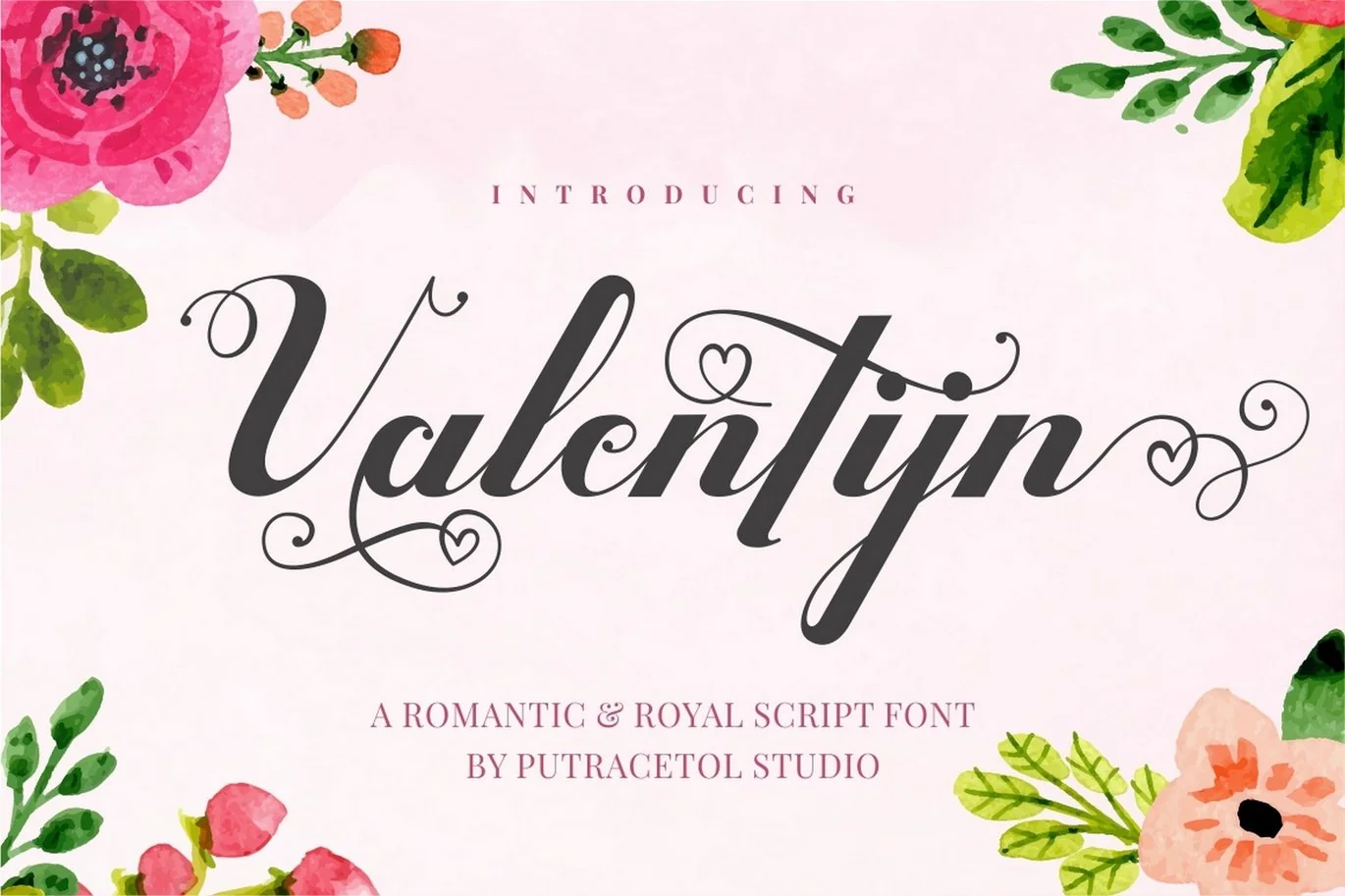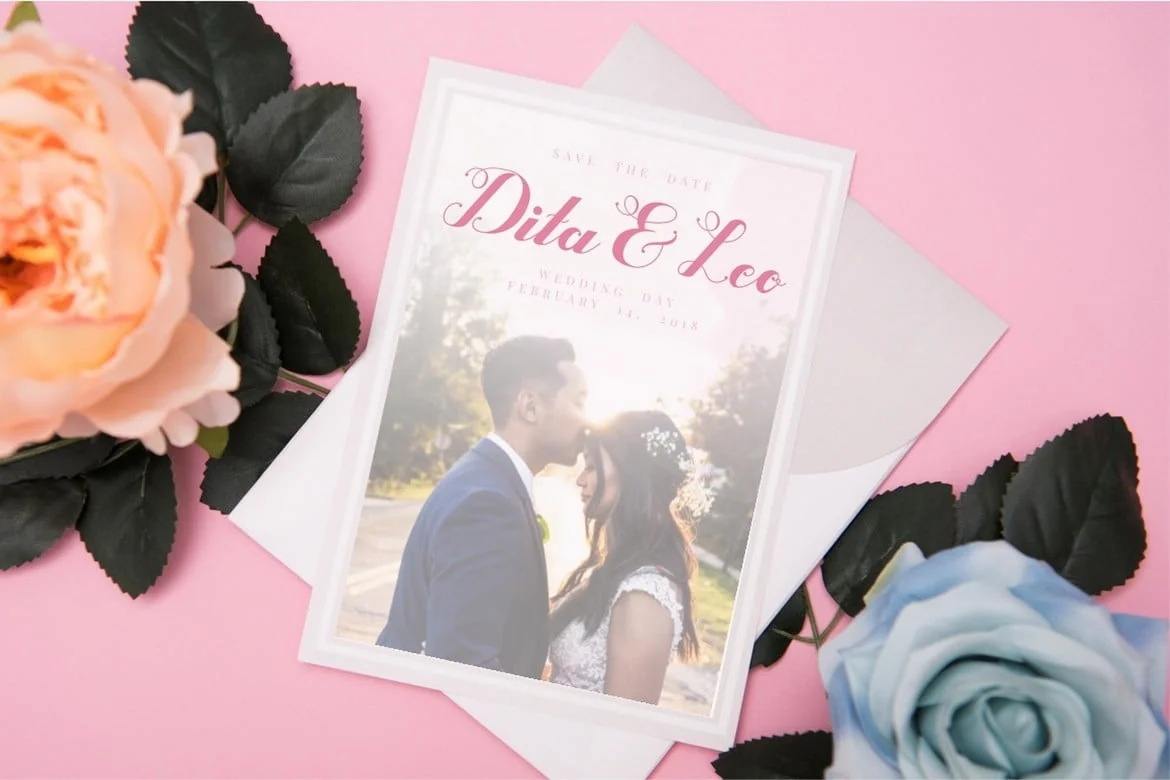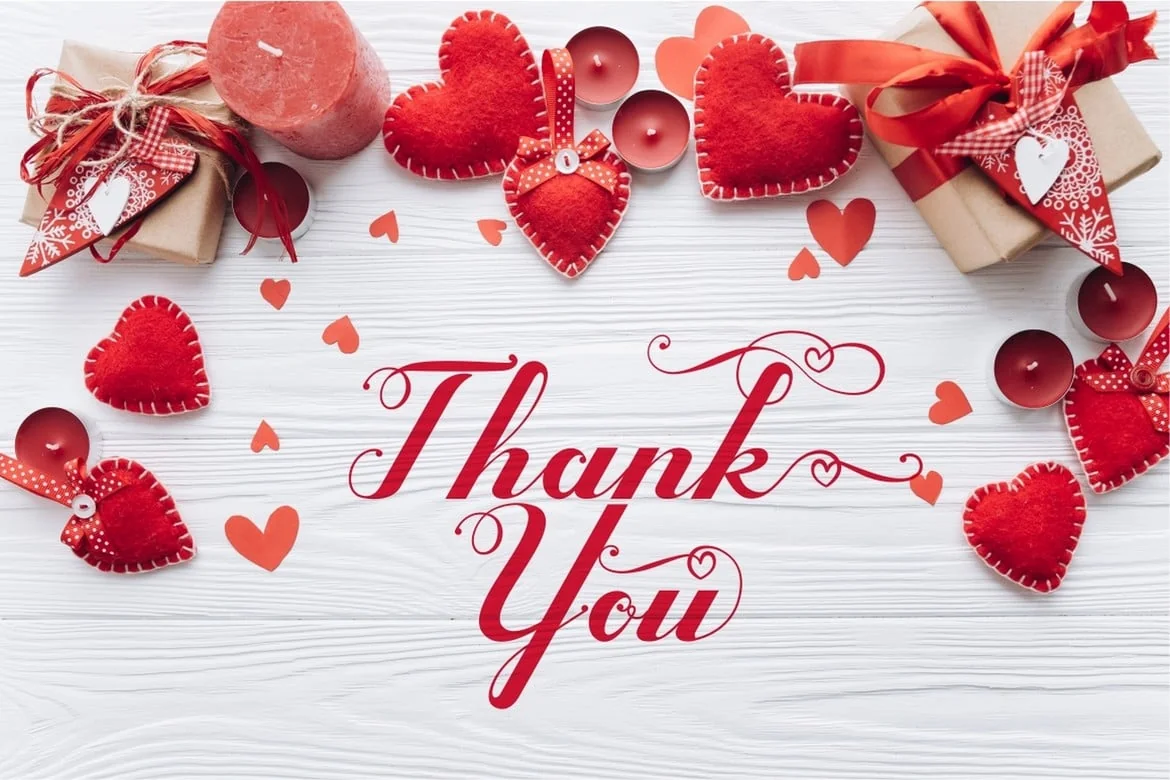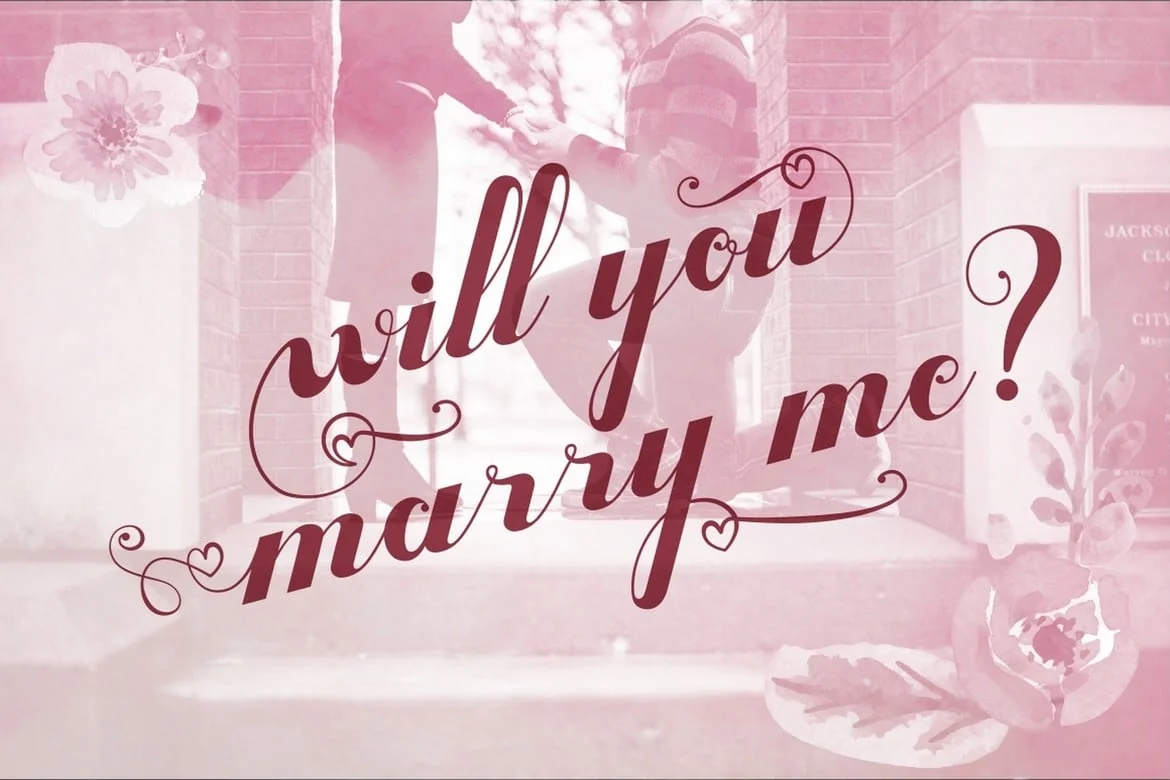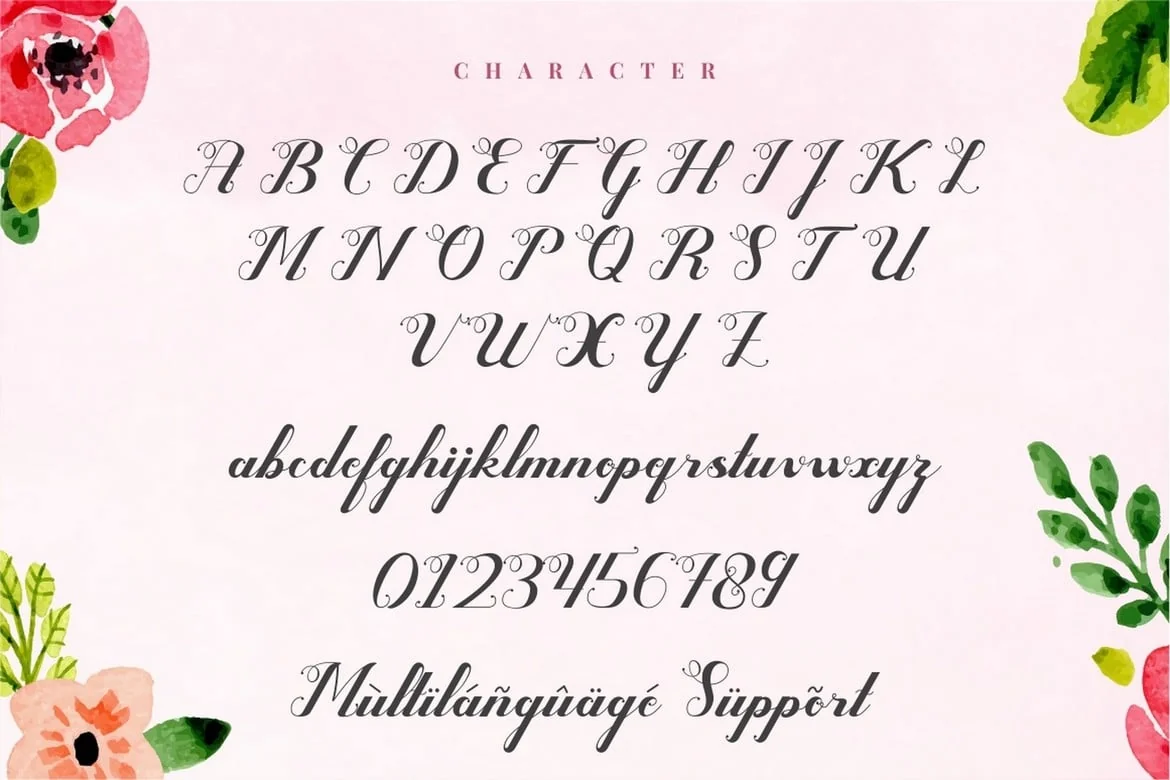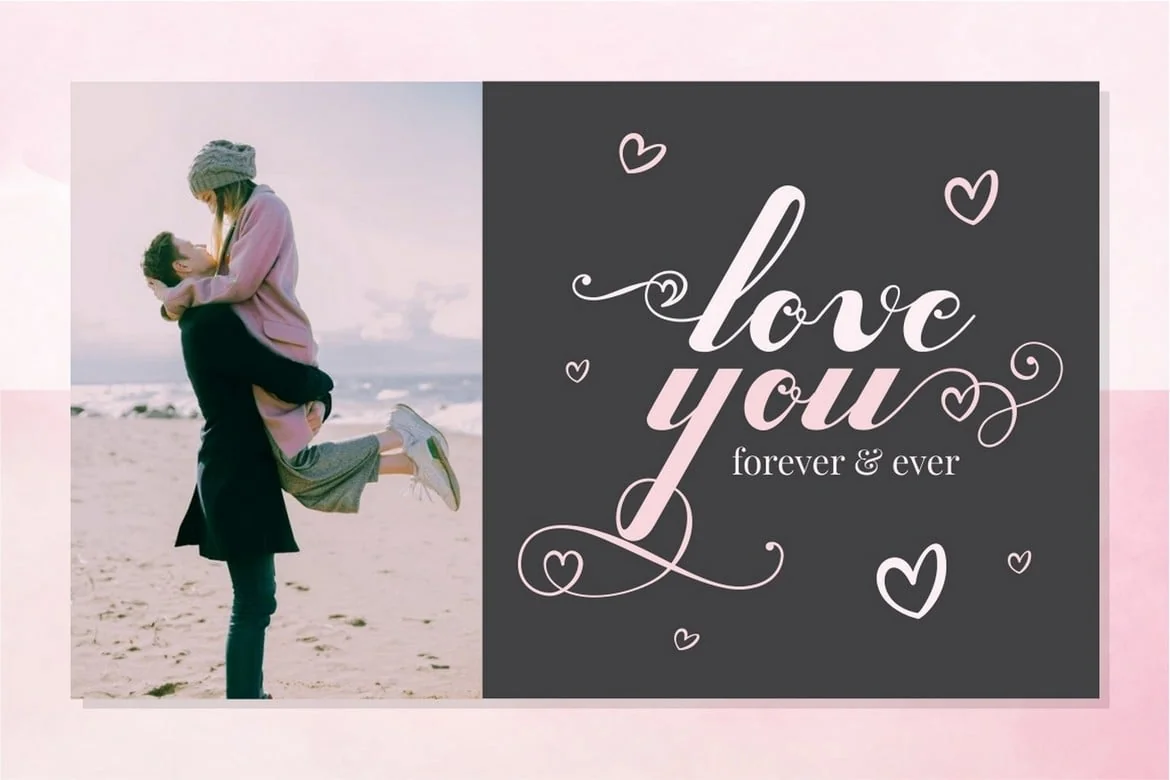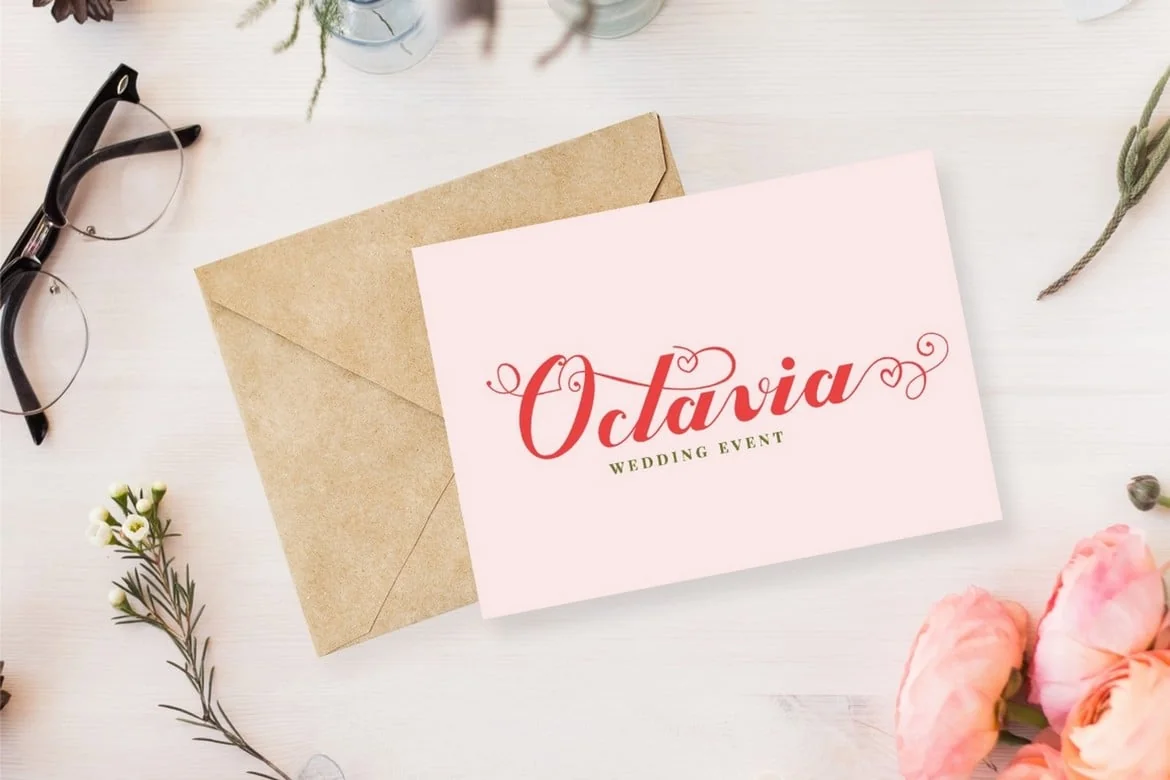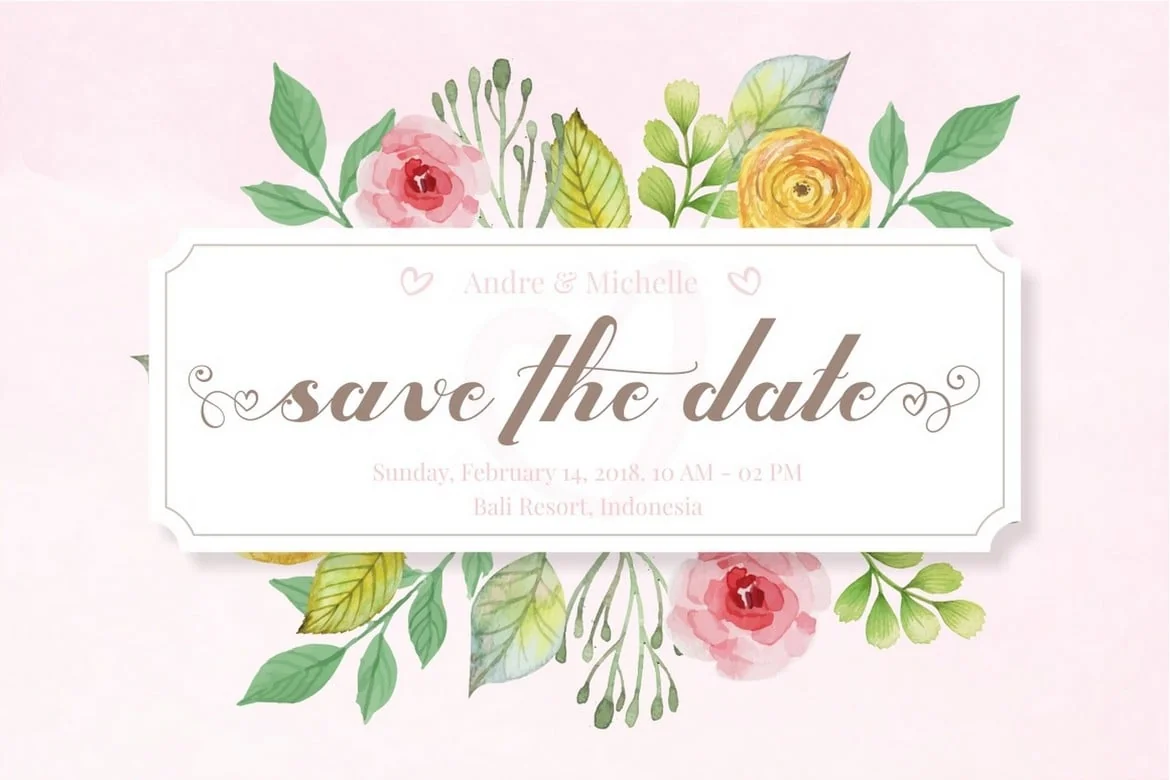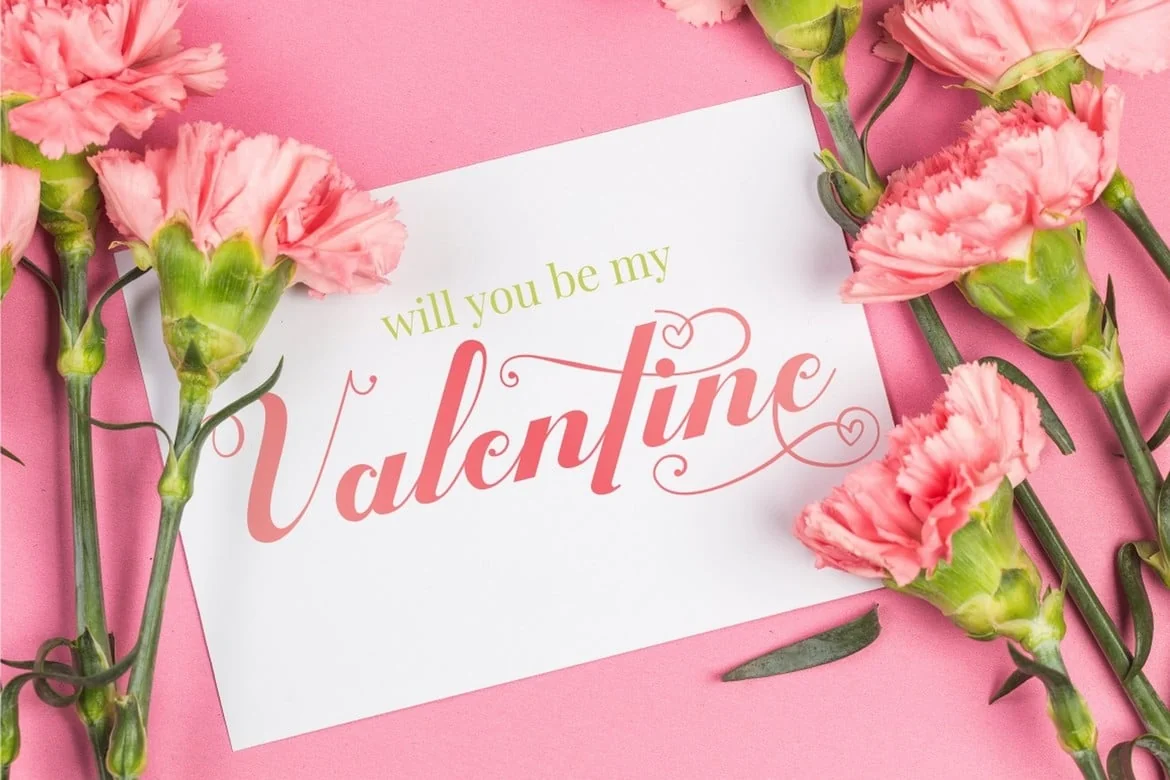
Valentijn – Romantic Font
** Valentijn **
Introducing a new romantic and royal script font called “Valentijn”, a lovely and sweet swirly letter font.
Come with open type feature with a lot of alternates and end swash, its help you to make great lettering.
Valentijn best uses for heading,cover, poster, logos, quotes, product packaging, header, merchandise, social media & greeting cards and many more.
This font is also support multi language.
** Comes with feature : **
- Number, Punctuation And Symbols
- Multilanguage Support.